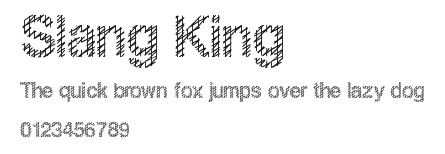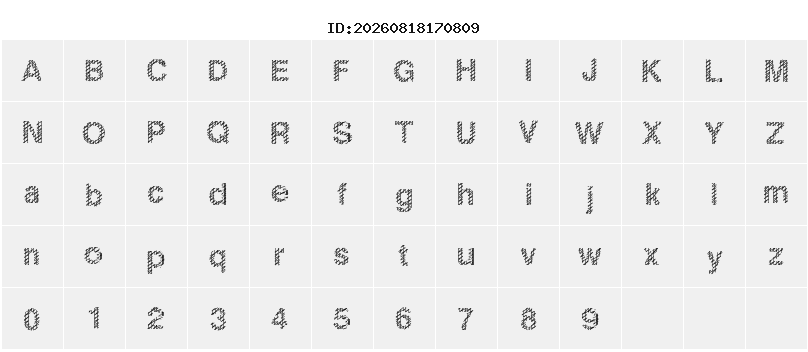
Slang King Preview
• Font Name: Slang King
• Full Font Name: Slang King
About Slang King.ttf
Slang King.ttf is a modern, elegant sans-serif font designed for ultimate readability and visual harmony. Perfect for branding, headlines, web design, and print materials.